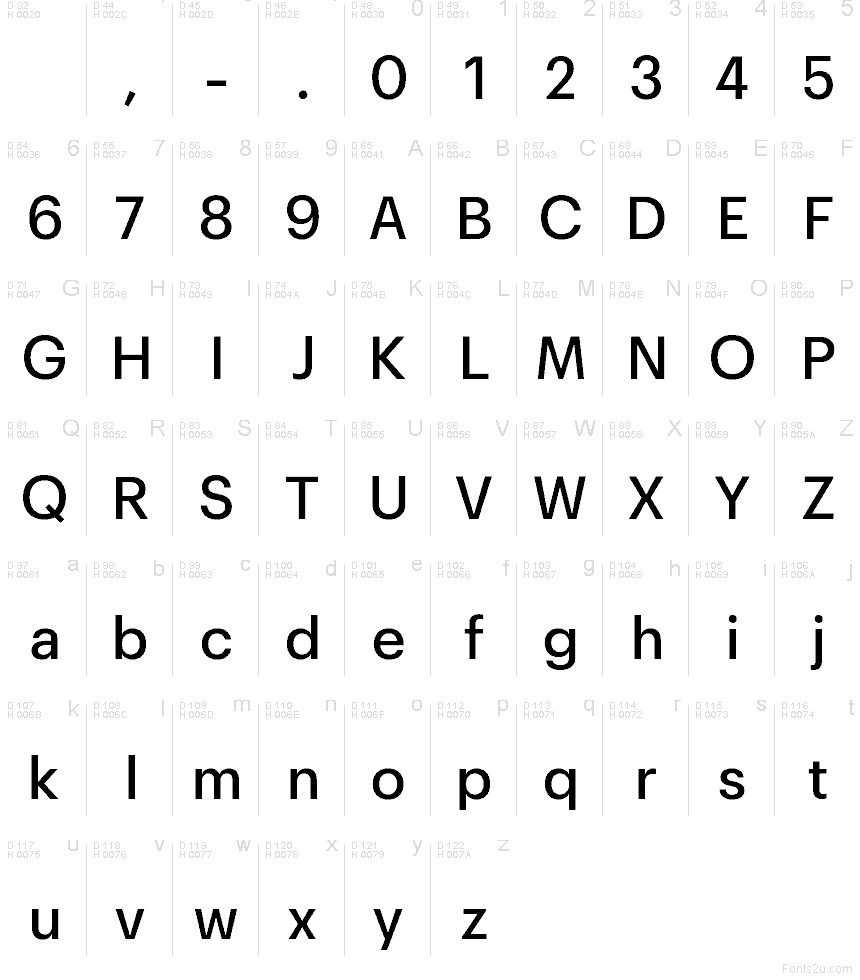
Encamp Test Medium
Encamp Test Medium font by Punchform is a free sans serif typeface that gives you a clean, no-drama solution when you just need text to read effortlessly and look quietly confident. Its even stroke weight, open counters, and steady verticals create a calm, orderly texture on the page, with spacing that feels tight enough for efficiency but never cramped. The Encamp Test family structure keeps everything feeling systematic and easy to scale across different layouts.
This free font works beautifully for interfaces, product UI, long-form articles, minimalist portfolios, corporate reports, pitch decks, and clean signage systems. Using Encamp Test Medium, you get a voice that’s modern but not trendy, professional without feeling cold. For a simple pairing, use this style for headings and a lighter weight from the Encamp Test family for body copy to build a clear, cohesive hierarchy.